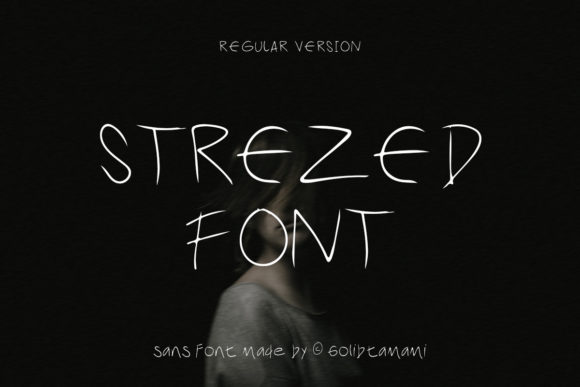
Unleash the captivating power of Strezed - the font that will add a touch of poignant pain and haunting horror to your creative endeavors. This meticulously crafted handwritten font, brought to life by the creative genius of Tammami, is designed to evoke deep emotions and leave a lasting impact.
Immerse yourself in the world of Strezed and discover a font that's perfect for display use, titles, and designs that explore themes of sadness, fatigue, and the poignant beauty of life's darker corners. Let your projects speak volumes with Strezed, a font that commands attention and captivates hearts.
With Strezed, you'll effortlessly create designs that resonate with your audience. Its unique character and emotive appeal make it the ideal choice for projects that aim to stir emotions and leave an unforgettable impression. Whether you're crafting movie titles, book covers, horror-themed posters, or any design that demands a touch of the macabre, Strezed will elevate your work to new heights.
So, step into the realm of Strezed and unlock a world of creative possibilities. Let this font guide you as you weave tales of sorrow, heartache, and the haunting beauty that lies within the depths of human experience. With Strezed, your designs will transcend the ordinary and become extraordinary.